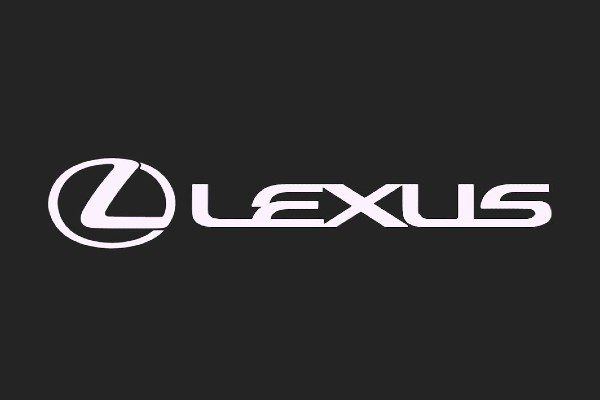
Today we are taking a closer look at the Lexus font. There is in fact a replica typeface that looks alot like the lettering used in the official Lexus logo. The name of this font is call AlexisV3.
Talking about quality and sophistication, Lexus went an extra mile, even for their logo, when they created a typeface that is remarkably theirs. The Lexus font, which is sans-serif, is a blend of soft curves and sharp edges that display artistry and grace. Similar to the company's cars, this type style is tasteful and unique. It also has a futuristic vibe, making it the best fit for your science fiction movie posters, magazine covers, film trailers, and video gaming design materials. It's versatile and clean; it looks good on logos, signages, and flyers, as well. You can never go wrong with the Lexus font if you want to leave a strong message and make a statement.